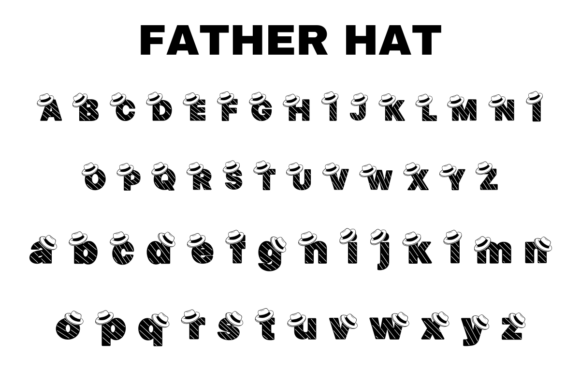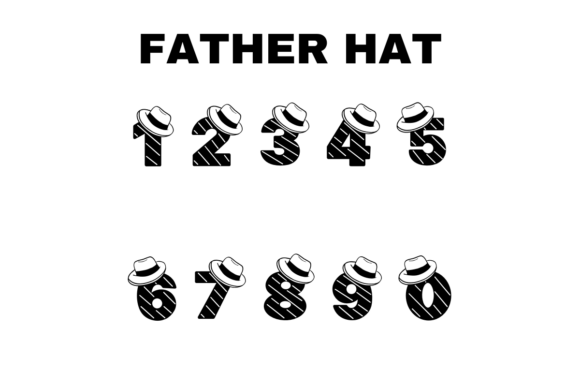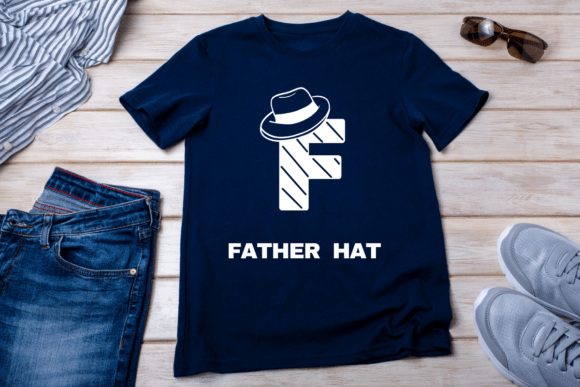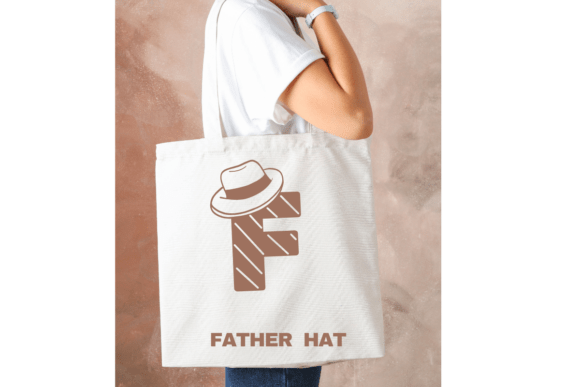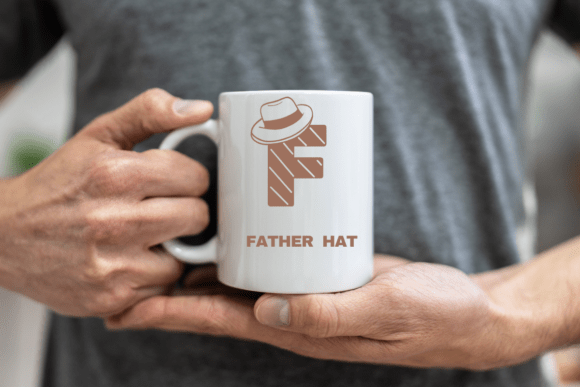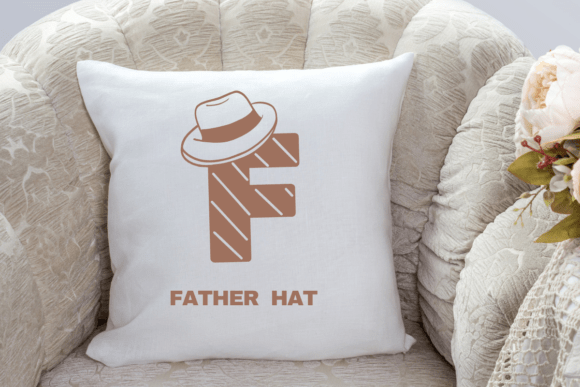
Introduction to Father Hat Font
Father Hat is a playful and charming decorative font featuring stylish hats integrated into letterforms.
Ideal for Fatherโs Day designs, greeting cards, kids’ projects, and whimsical branding .
Key Features of Father Hat Font